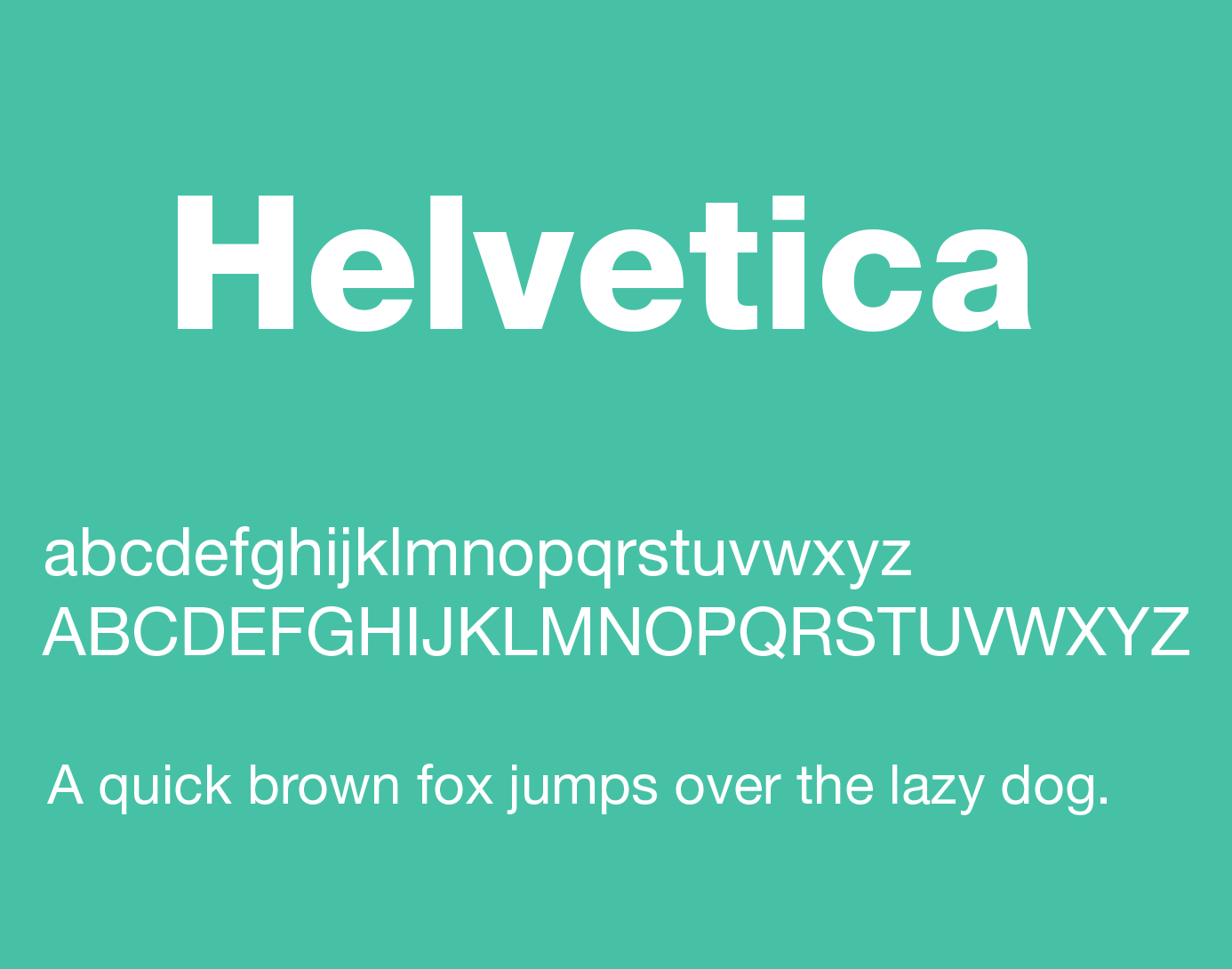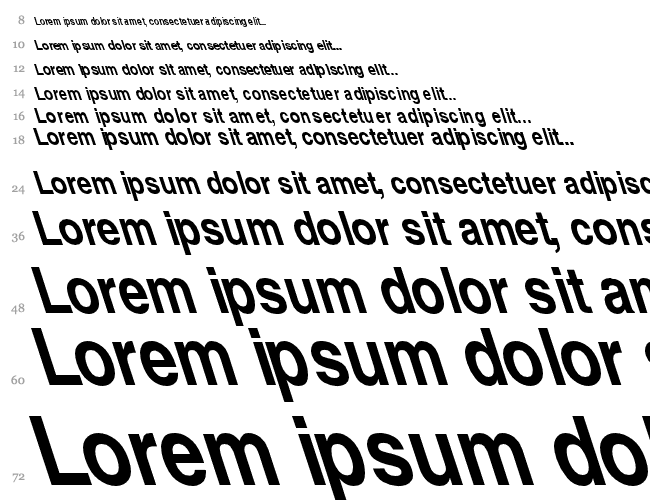
Helvetica Truetype Font
Helvetica Truetype Font - Web helvetica regular truetype font this is the page of helvetica font. Helvetica is one of the most recognizable sans serif fonts in use today. You can download it for free and without. The simplicity and clarity of its.
Helvetica is one of the most recognizable sans serif fonts in use today. You can download it for free and without. Web helvetica regular truetype font this is the page of helvetica font. The simplicity and clarity of its.
The simplicity and clarity of its. Web helvetica regular truetype font this is the page of helvetica font. You can download it for free and without. Helvetica is one of the most recognizable sans serif fonts in use today.
Helvetica is one of the most recognizable sans serif fonts in use today. Web helvetica regular truetype font this is the page of helvetica font. The simplicity and clarity of its. You can download it for free and without.
The simplicity and clarity of its. Helvetica is one of the most recognizable sans serif fonts in use today. Web helvetica regular truetype font this is the page of helvetica font. You can download it for free and without.
Web helvetica regular truetype font this is the page of helvetica font. The simplicity and clarity of its. Helvetica is one of the most recognizable sans serif fonts in use today. You can download it for free and without.
Web helvetica regular truetype font this is the page of helvetica font. You can download it for free and without. Helvetica is one of the most recognizable sans serif fonts in use today. The simplicity and clarity of its.
Helvetica is one of the most recognizable sans serif fonts in use today. The simplicity and clarity of its. Web helvetica regular truetype font this is the page of helvetica font. You can download it for free and without.
You can download it for free and without. The simplicity and clarity of its. Web helvetica regular truetype font this is the page of helvetica font. Helvetica is one of the most recognizable sans serif fonts in use today.
Web helvetica regular truetype font this is the page of helvetica font. The simplicity and clarity of its. Helvetica is one of the most recognizable sans serif fonts in use today. You can download it for free and without.
You can download it for free and without. Helvetica is one of the most recognizable sans serif fonts in use today. Web helvetica regular truetype font this is the page of helvetica font. The simplicity and clarity of its.
Helvetica is one of the most recognizable sans serif fonts in use today. The simplicity and clarity of its. Web helvetica regular truetype font this is the page of helvetica font. You can download it for free and without.
Helvetica is one of the most recognizable sans serif fonts in use today. The simplicity and clarity of its. You can download it for free and without.